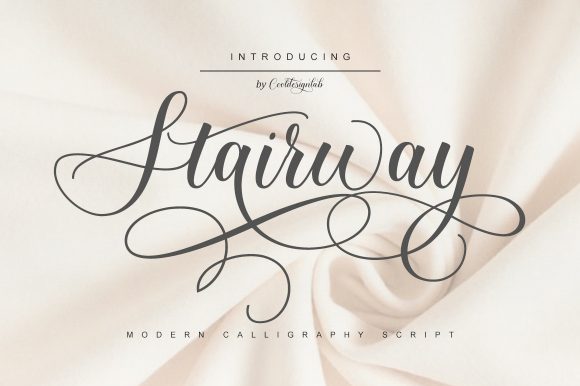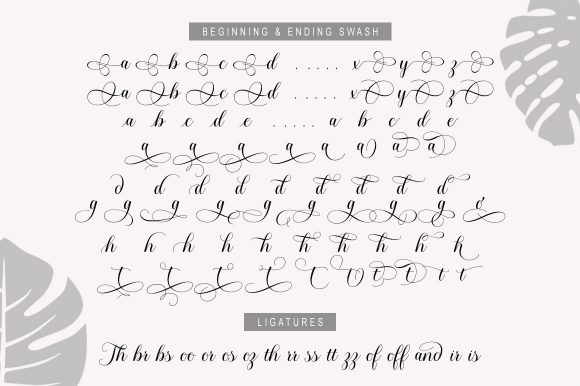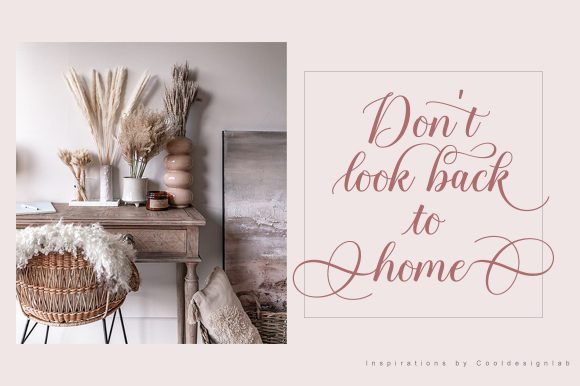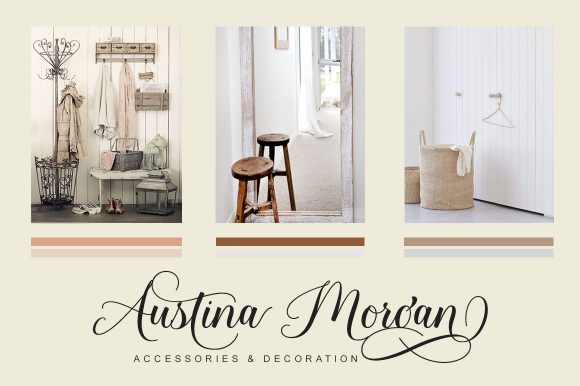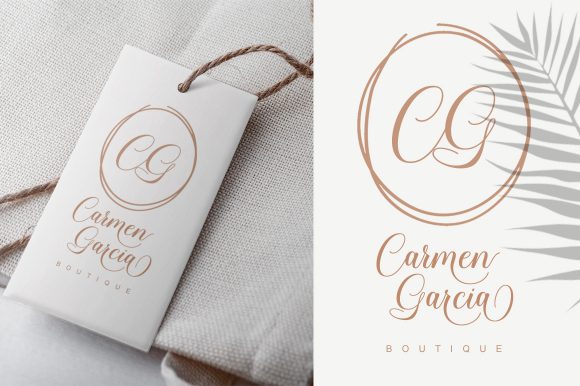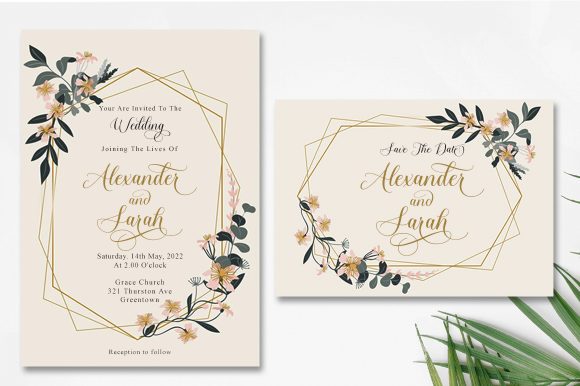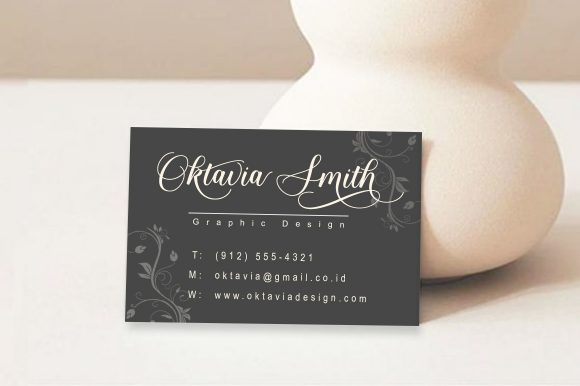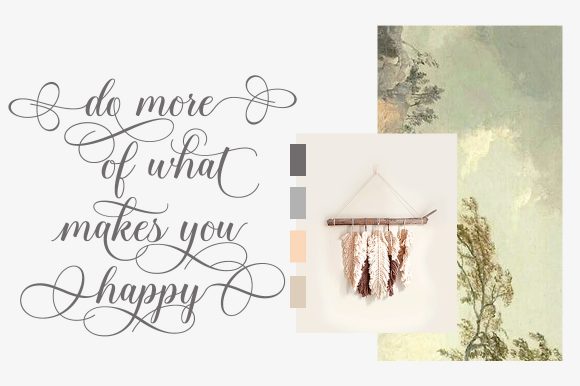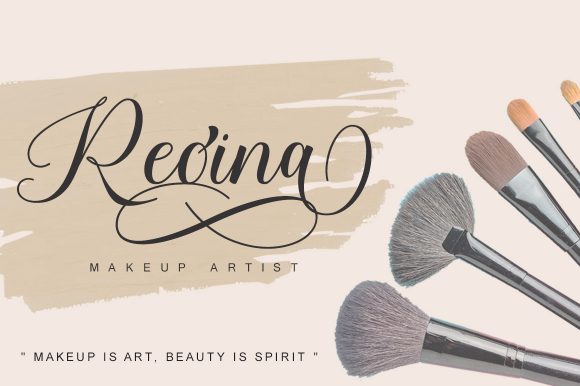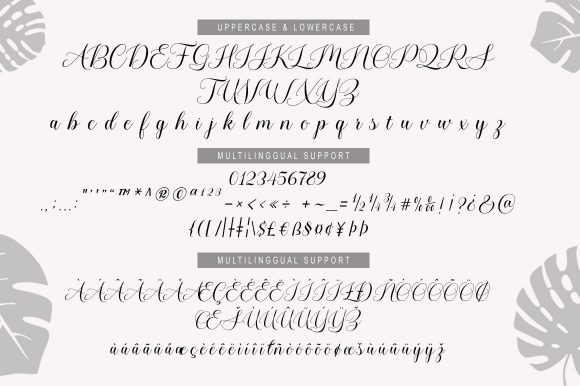
Stairway Font
About Stairway Font
Stairway is a modern and elegant calligraphy font that comes with exquisite character changes and designed with high detail to present an elegant style.